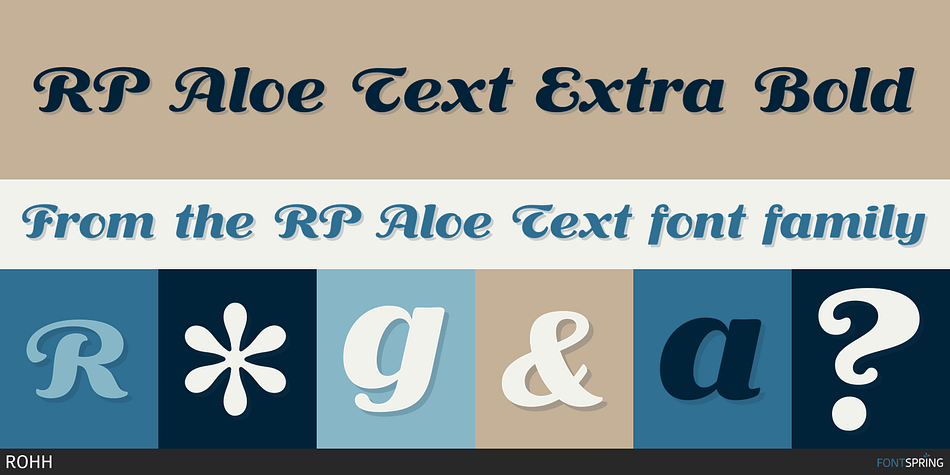
RP Aloe Text Extra Bold
RP Aloe Text is a script font family. This typeface has three styles and was published by ROHH.
RP Aloe Text™ is a display italic fat face font family inspired by headlines from 1930’s newspapers.
The family consists of 3 weights, ranging from Extra Bold to Heavy.
RP Aloe Text’s original letterforms fit broad range of design purposes from advertising, packaging, branding, wedding invitations, menu cards and other editorial uses to screen and web projects. Aloe also works very well for short to medium paragraphs of text.